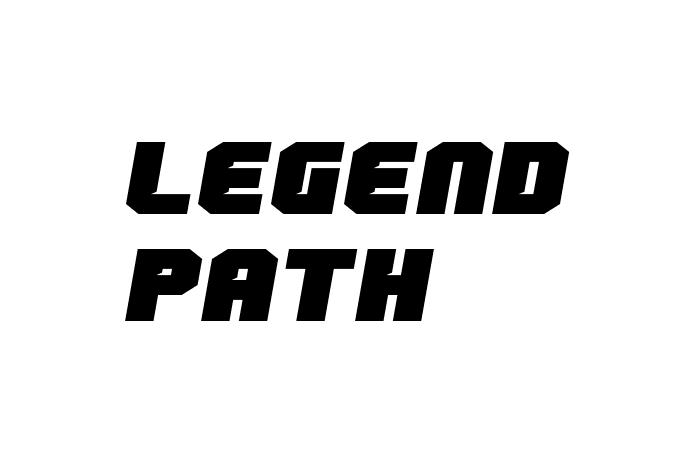
Magistral Bold Italic W08 Rg
Introducing the modern Magistral Bold Italic W08 Rg Font, is a cool and Regular Sci-fi techno looking display Font This font is ideal for writing web designs, business cards, or pretty much anything else that requires a unique touch, this font designed by Andrey Kryukov, Dmitry Kirsanov is available for free download and personal use.
Font name Magistral Bold Italic W08 Rg
Font designer Andrey Kryukov, Dmitry Kirsanov
Typeface classification Sci-fi,Techno